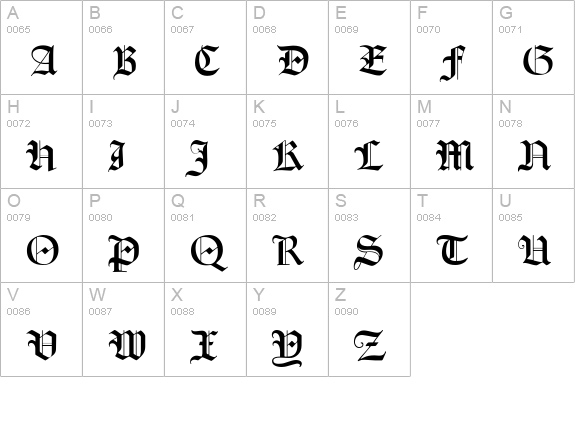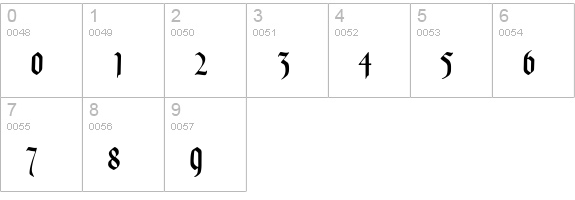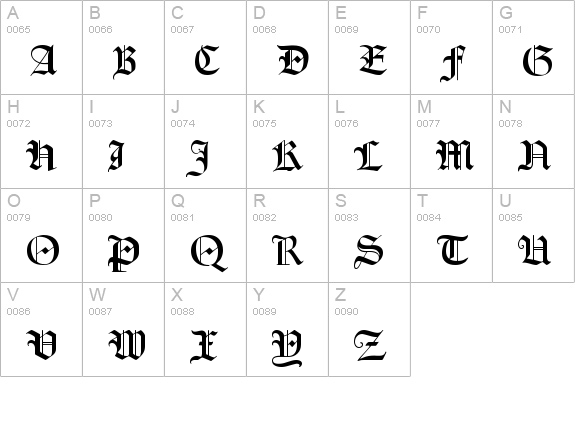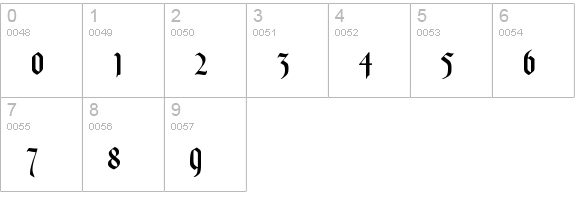
Lohengrin Font Details
Lohengrin is a stunning and elegant font that exudes sophistication and charm. With its delicate curves and stylish flourishes, this typeface is perfect for adding a touch of class to any design project. Whether you're creating wedding invitations, branding materials, or social media graphics, Lohengrin is sure to make a statement. What makes Lohengrin even more appealing is that it is completely free to download at FontsMarket.com. This means that you can access this beautiful font without any cost, making it a valuable addition to your font collection. Don't miss out on the opportunity to elevate your designs with the timeless beauty of Lohengrin. Download it today and let your creativity shine!